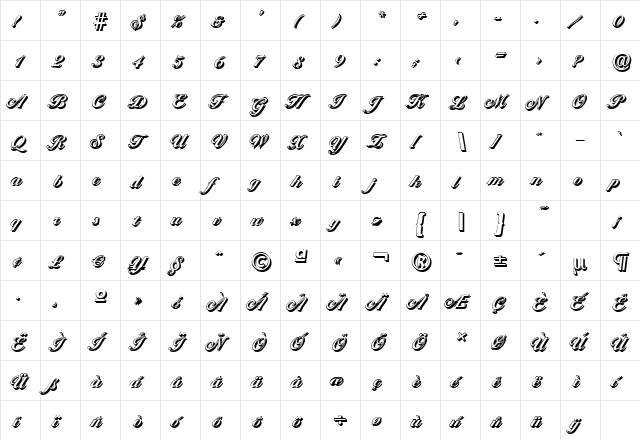
BallantinesShadow-Xbold Regular
Design Context for BallantinesShadow-Xbold Typeface
BallantinesShadow-Xbold brings ornamental detail and strong personality to headlines and identities, where visual impact matters more than quiet functionality. Its bold stroke weight gives it real presence on the page.
Font Pairing: Pair with a clean neutral sans-serif for body copy to let BallantinesShadow-Xbold's character lead without overwhelming the composition.
Pro Tip: Use BallantinesShadow-Xbold exclusively at display sizes — it was designed to be seen, not read at length. Let a neutral companion handle body copy.